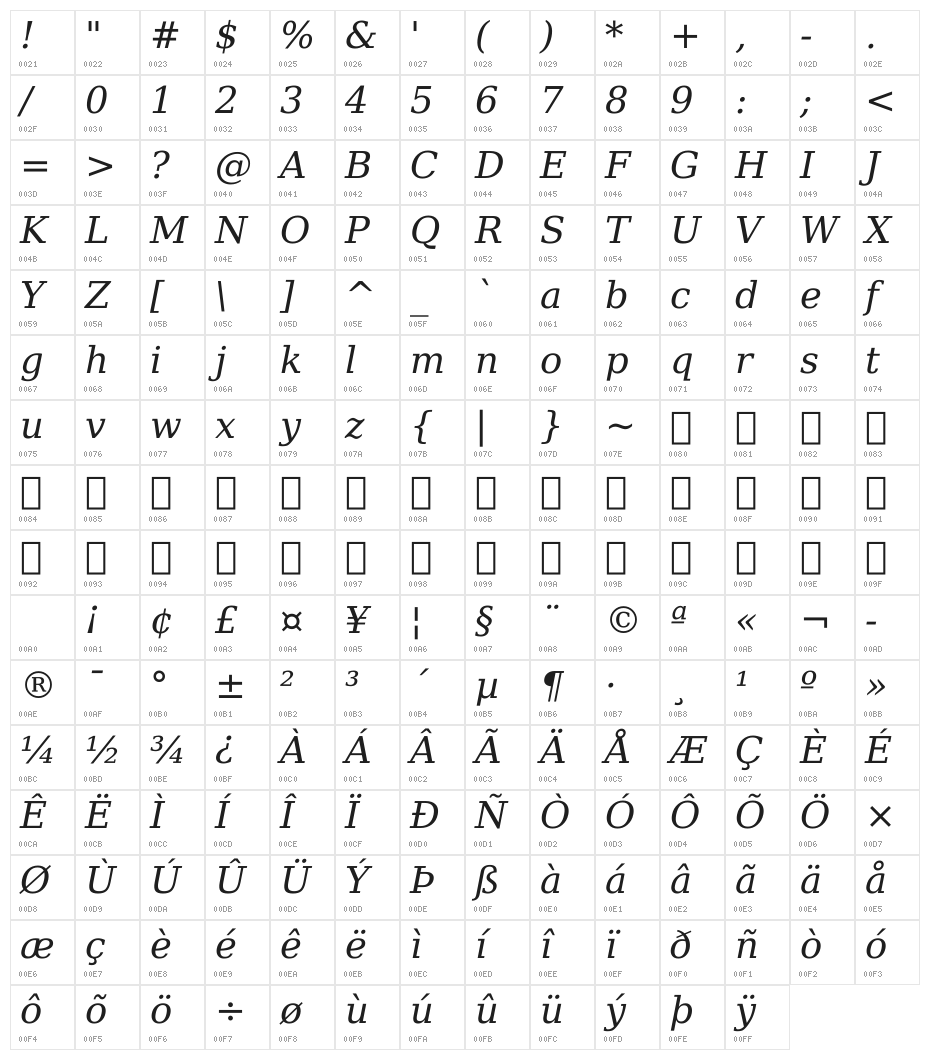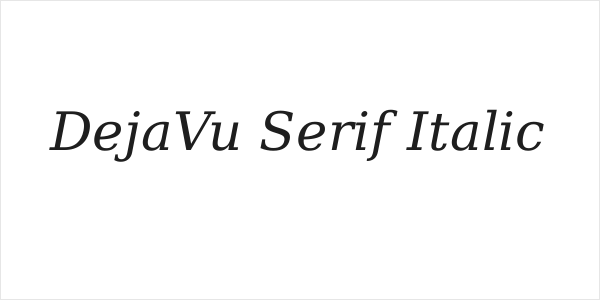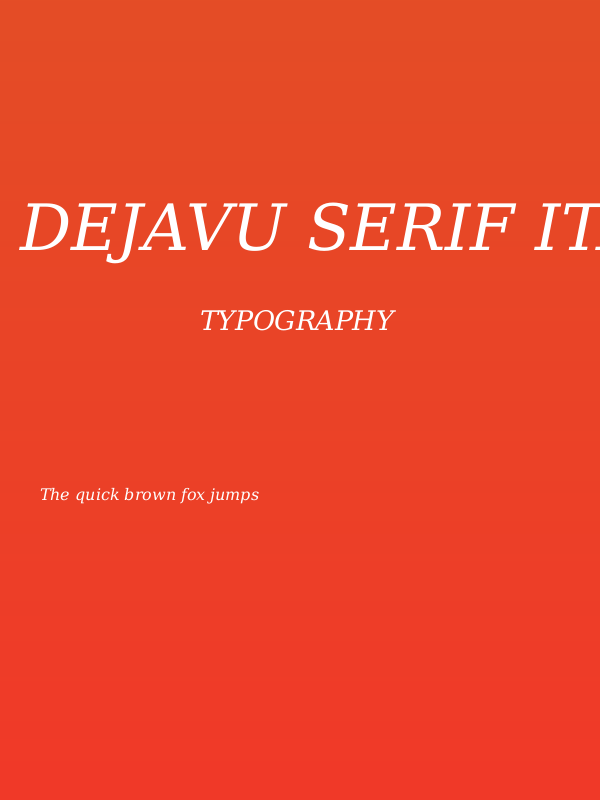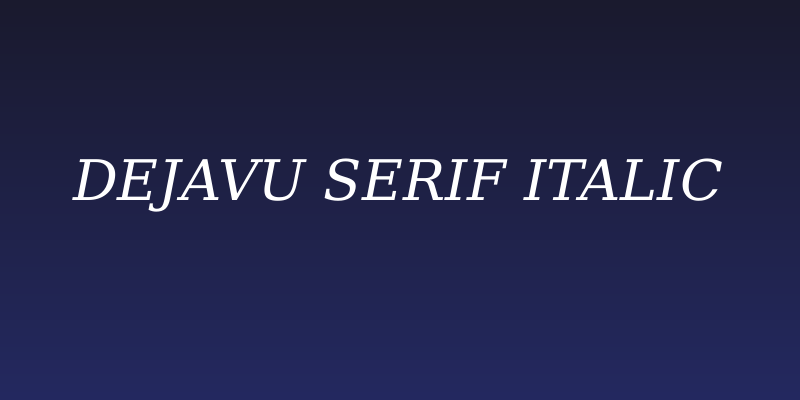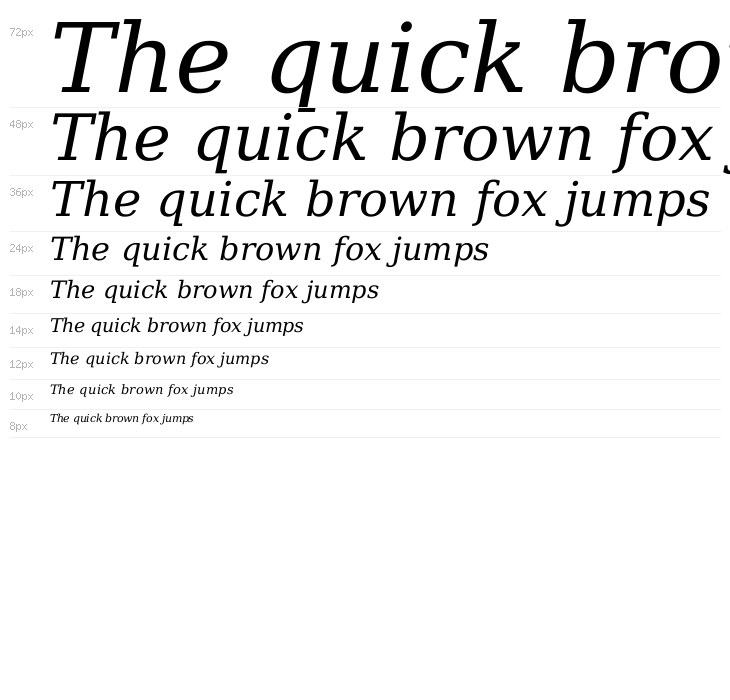
DejaVu Serif Italic Font
DejaVu Serif Italic Description
This font is a classic serif typeface with an elegant italic style. It features distinct, flowing curves and a slight slant, giving it a sophisticated and refined appearance. The serifs are well-defined, adding a touch of tradition and formality. The uppercase letters are tall and commanding, while the lowercase letters maintain a smooth and consistent flow. The numbers are clear and legible, making them suitable for both text and display purposes. Special characters are thoughtfully designed, ensuring versatility in various contexts. Overall, this font combines readability with an aesthetic appeal, making it ideal for formal documents, invitations, and editorial design.
| Use Case | Headlines, Body text, Editorial design |
| Proposed Projects | Ideal for formal documents, invitations, editorial design, and branding materials. |